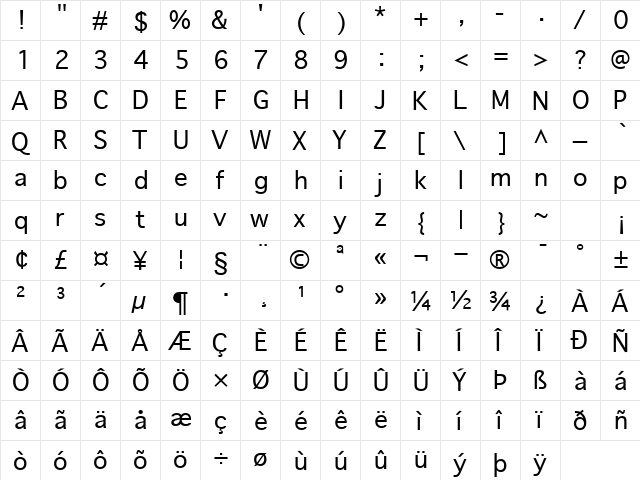
Geneva Regular Font Preview
Geneva Regular
Design Context for Geneva Typeface
Geneva offers clean, dependable letterforms without strong stylistic allegiance, making it a practical choice for designers who need flexibility.
Pro Tip: Use Geneva in both headline and body roles to test its range before committing to a single application.